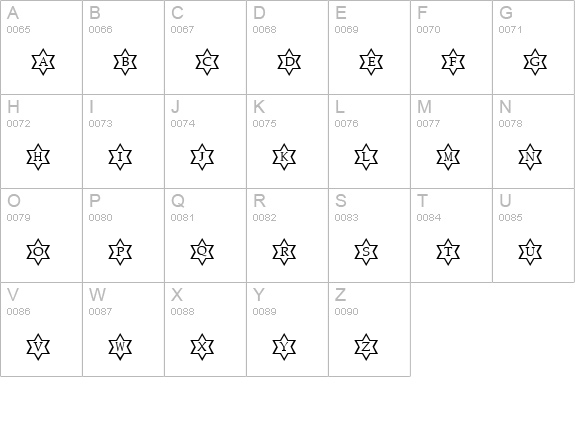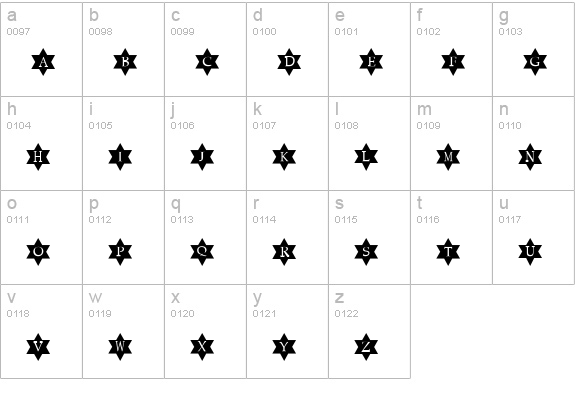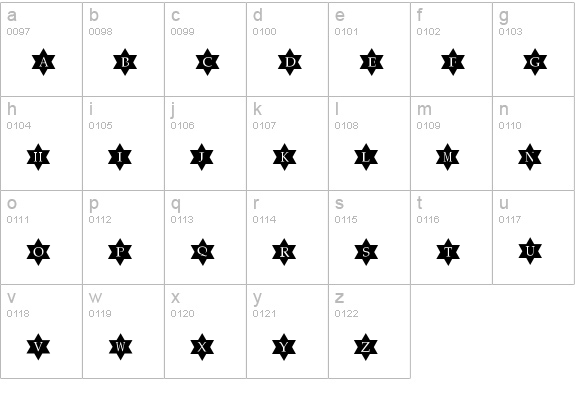
StarsOfDavid is a breathtaking font that encapsulates elegance and charm. With its intricate and captivating design, this font is sure to make any project shine. The unique aspect of StarsOfDavid lies in its incorporation of the iconic Star of David symbol, which adds a touch of cultural significance and depth to any text. This font is perfect for a wide range of purposes, whether it be designing eye-catching logos, creating striking headlines, or adding a touch of sophistication to invitations and greeting cards. Its versatility knows no bounds, making it a must-have for any designer or creative individual. One of the best things about StarsOfDavid font is that it is available for free. That's right, you can easily download this font without having to spend a dime. Simply head over to FontsMarket.com, and you'll find StarsOfDavid font waiting to be added to your collection. So why wait? Don't miss out on the opportunity to enhance your designs with this remarkable font. Download StarsOfDavid today and let your creativity shine like never before.